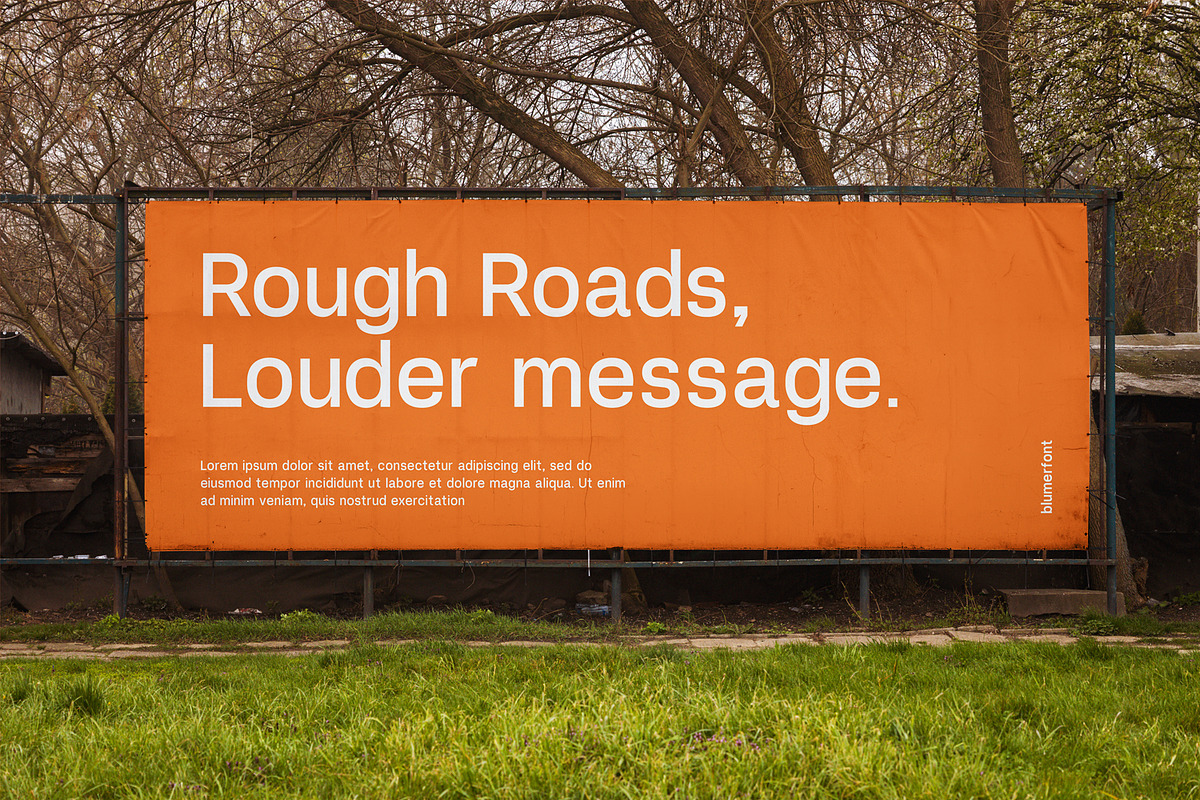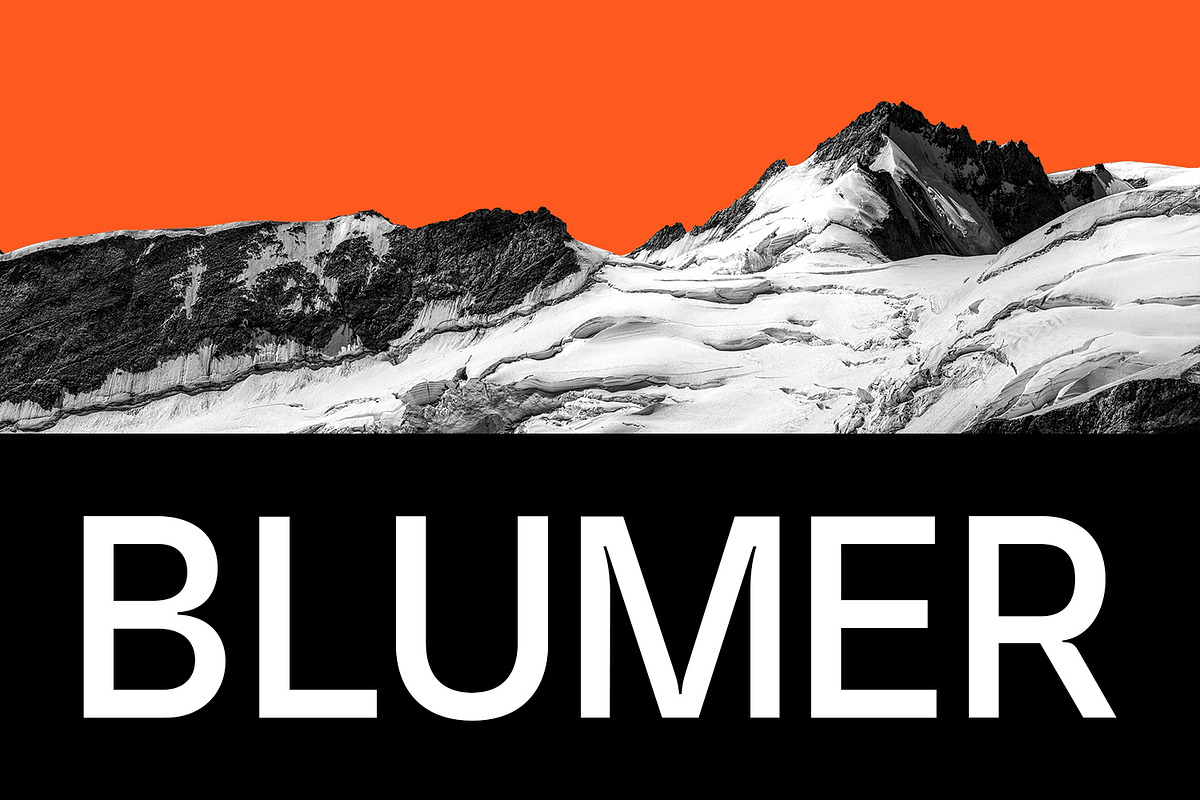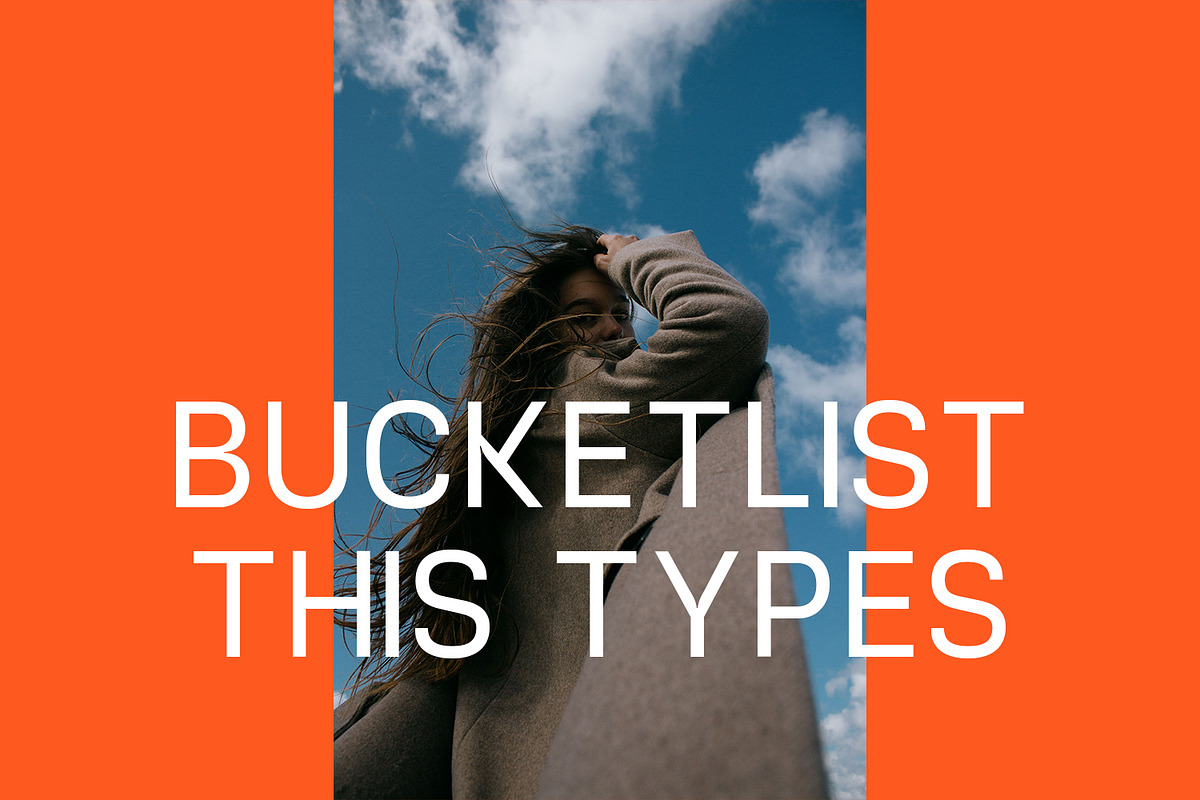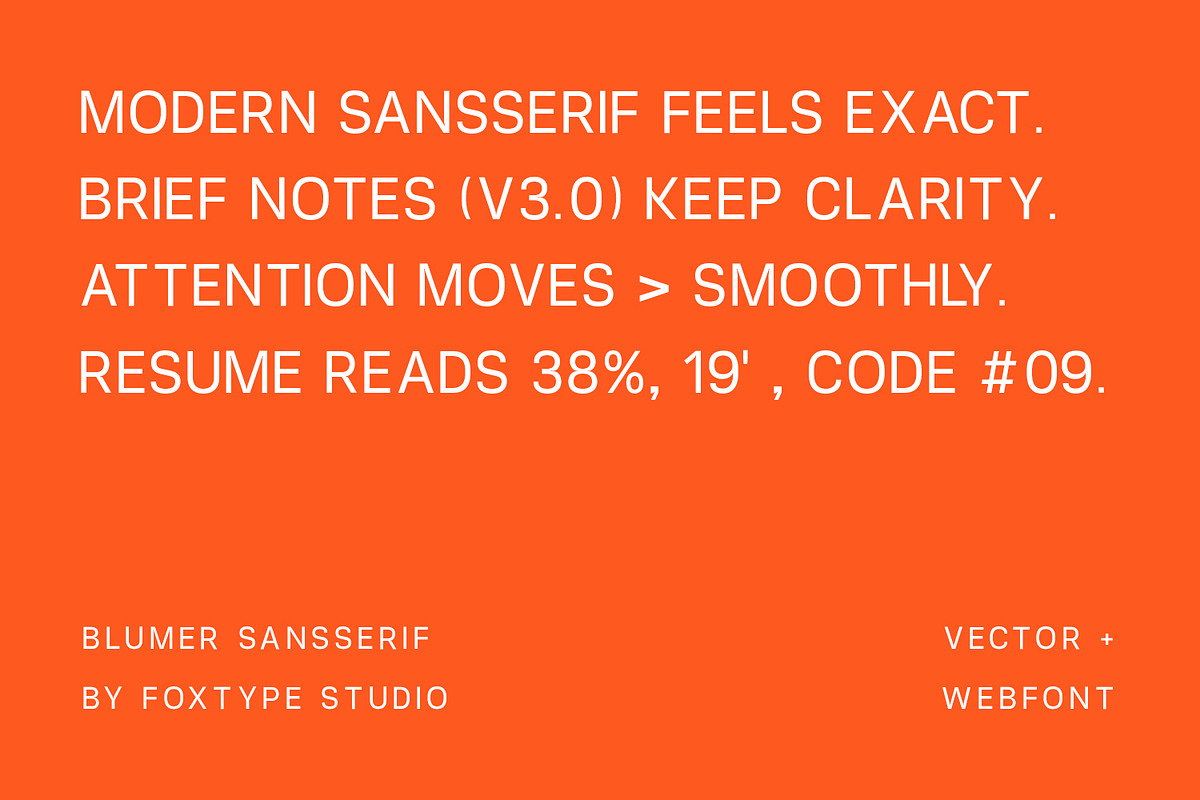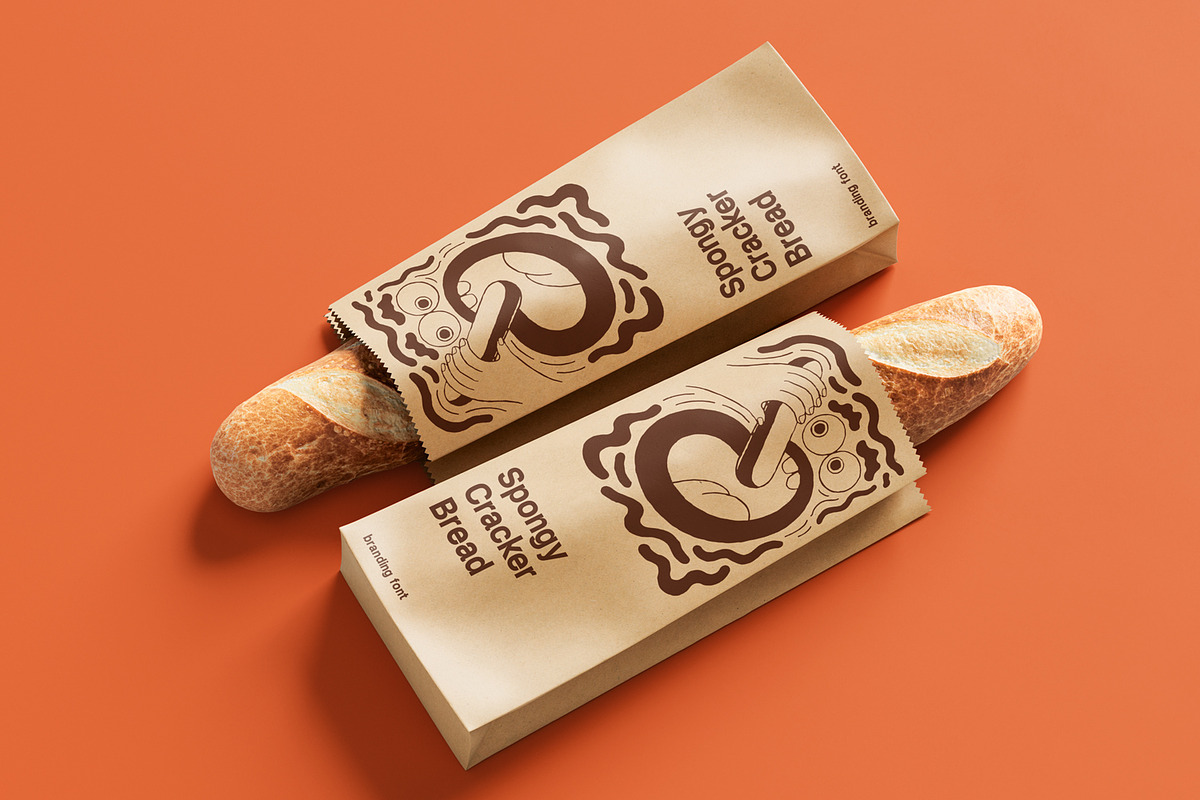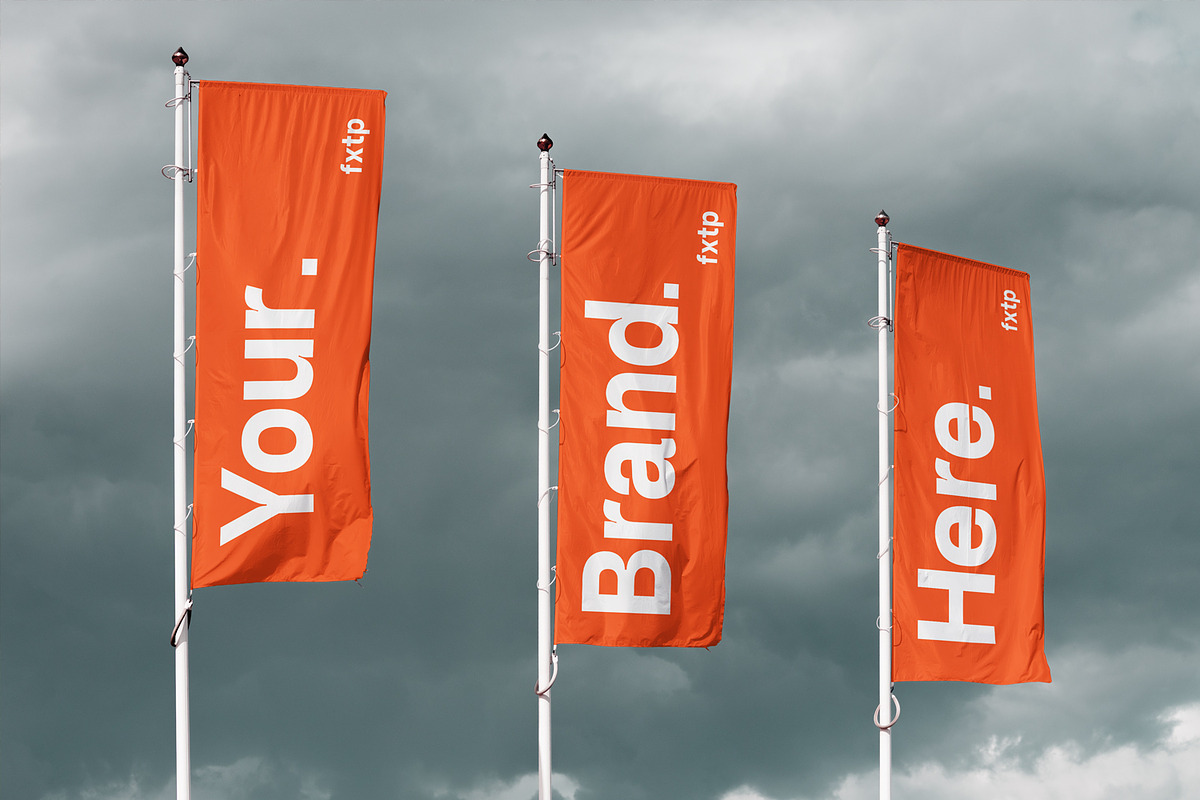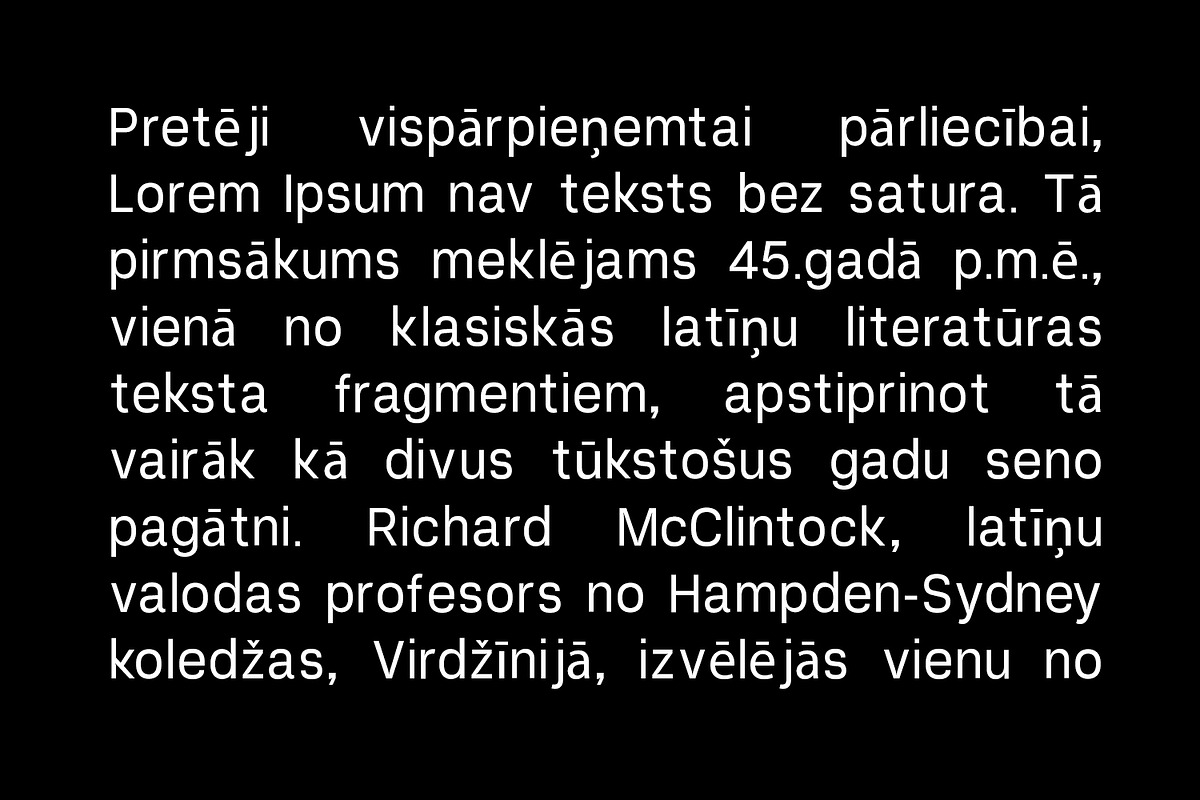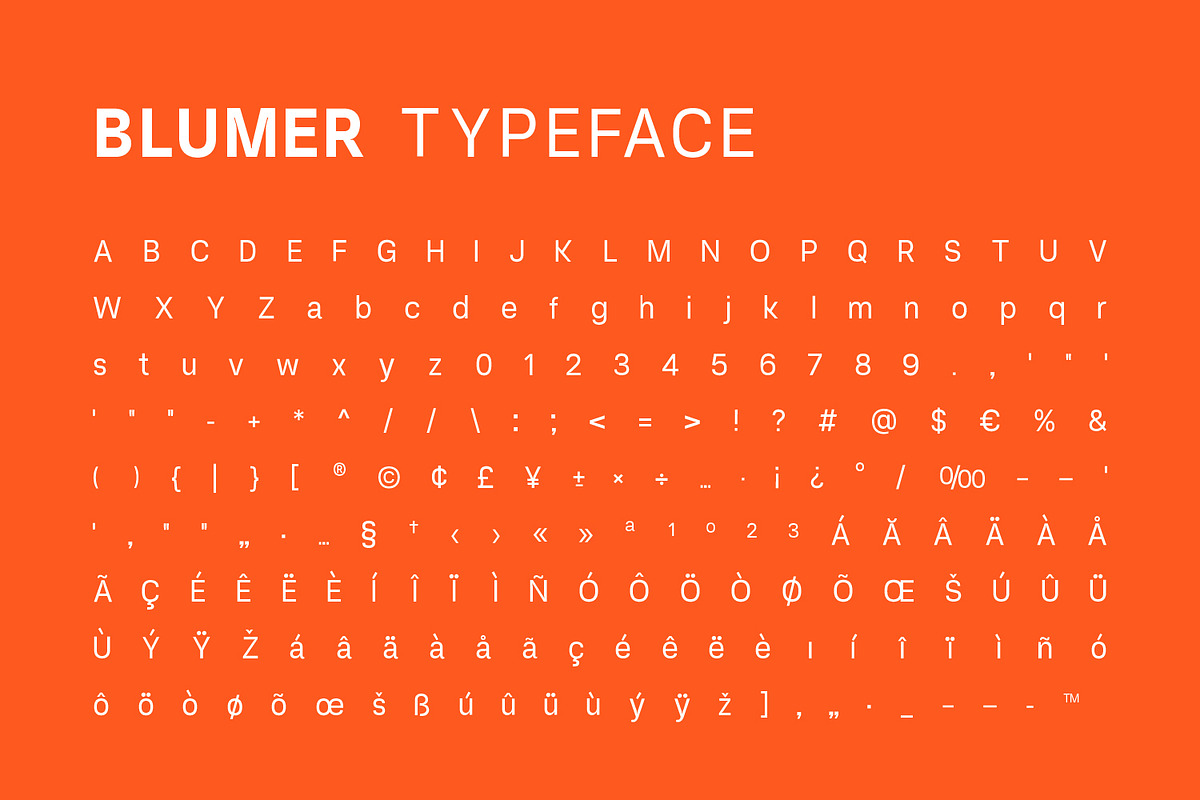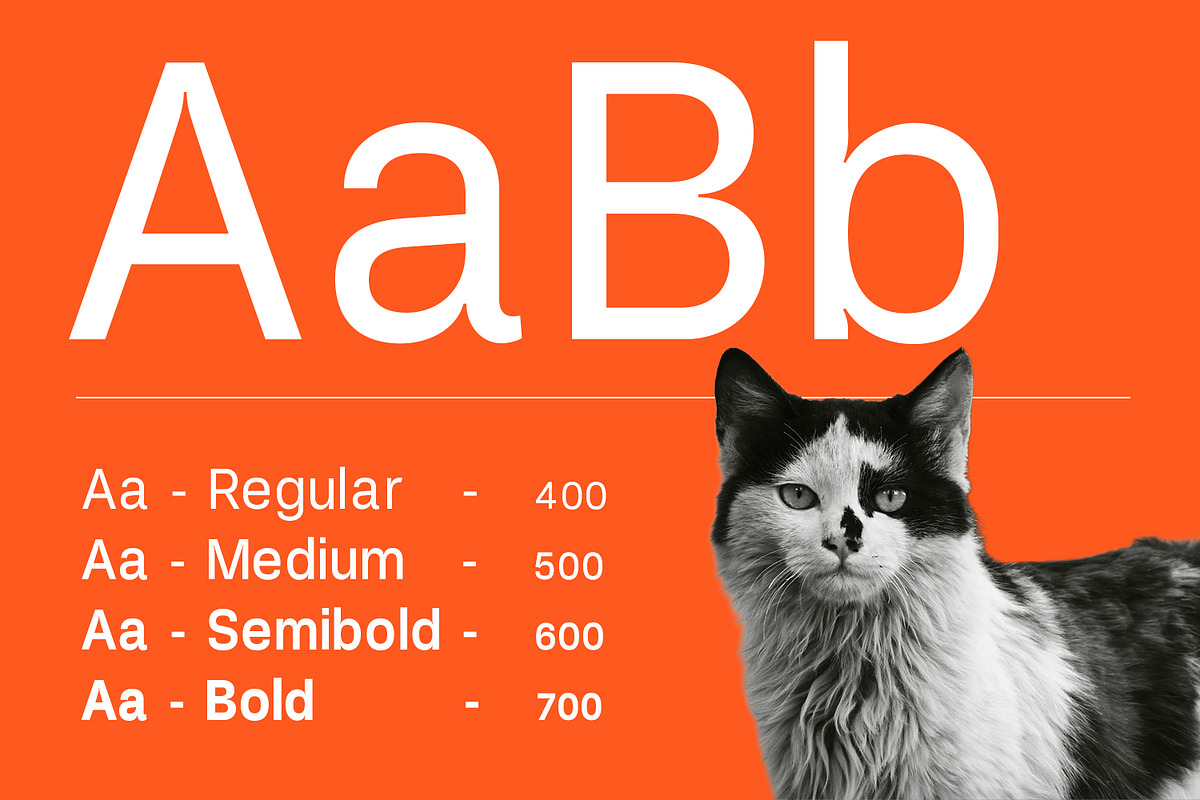
Blumer Modern Branding Sans Serif
Blumer is a modern sans serif typeface from Foxtype Foundry, crafted for designers who value clarity, sophistication, and strong visual impact. With its clean geometry, balanced proportions, and contemporary character, Blumer brings a refined presence to branding projects, editorial layouts, packaging, websites, and marketing materials. Featuring 4 carefully designed weights, Blumer offers the flexibility to create cohesive visual systems across both print and digital applications. Whether you're building a premium brand identity, designing striking headlines, or creating modern web experiences, Blumer delivers exceptional readability and a confident aesthetic. Designed with versatility in mind, Blumer seamlessly adapts to logos, posters, magazines, social media graphics, packaging, presentations, and more. Features 4 Weights Included Modern Sans Serif Design Perfect for Branding & Identity Design Ideal for Headlines, Posters, Packaging & Editorials Optimized for Print and Digital Use Webfont Ready Vector Friendly Includes TTF, OTF, WOFF & WOFF2 Formats * Multilingual Support _Blumer is a contemporary typeface that combines minimalism, versatility, and bold character—helping modern brands communicate with confidence and style.